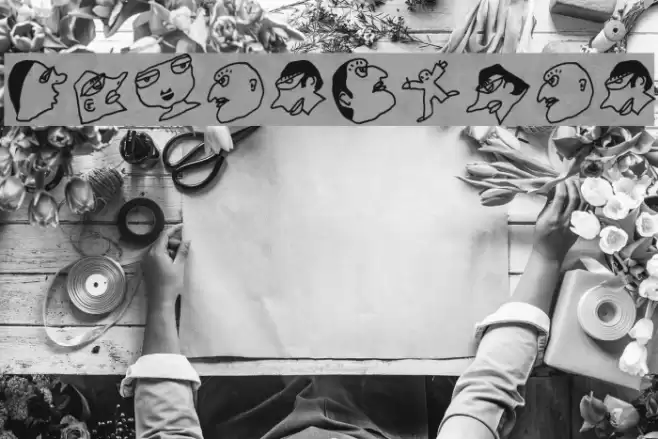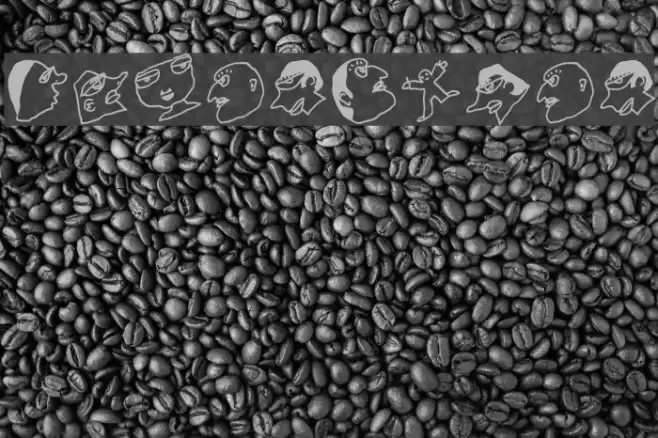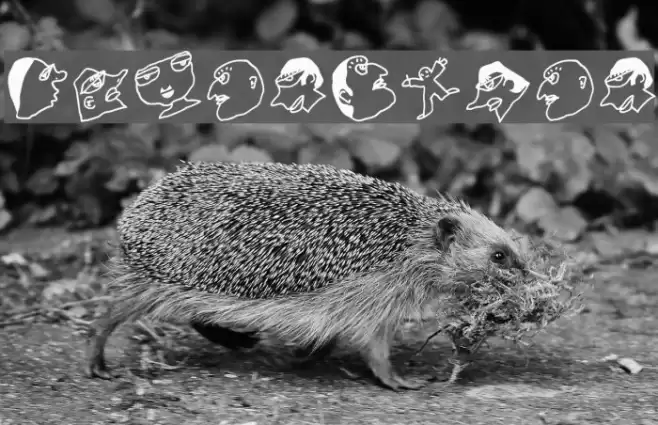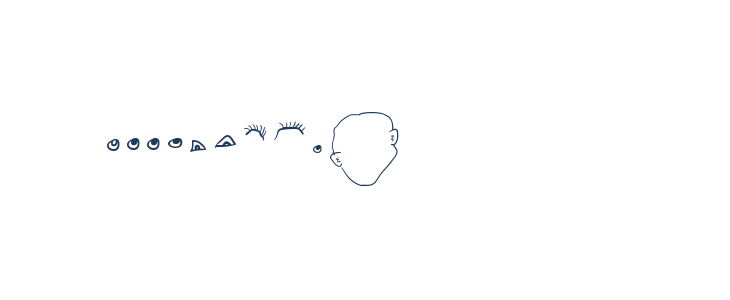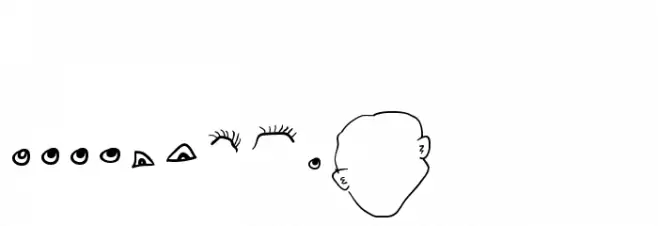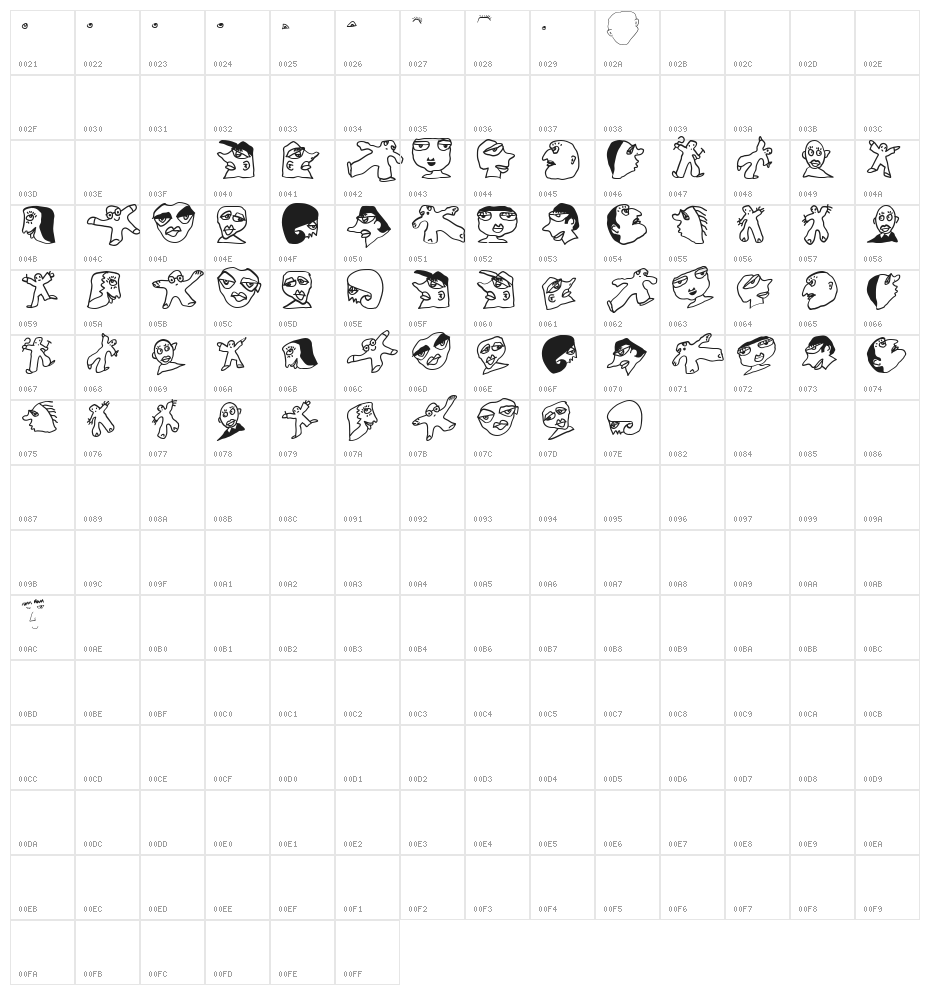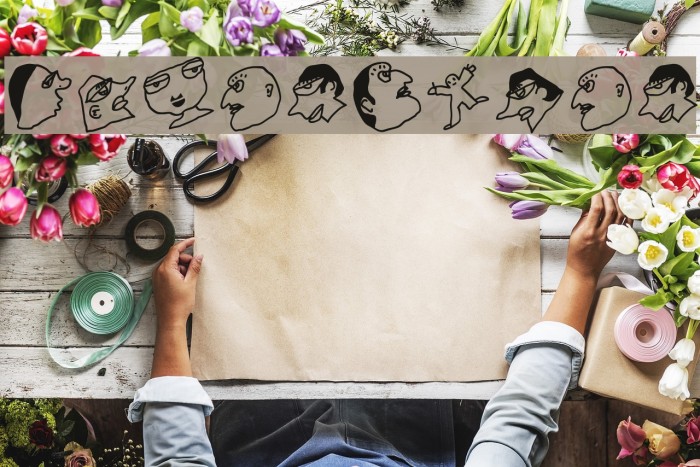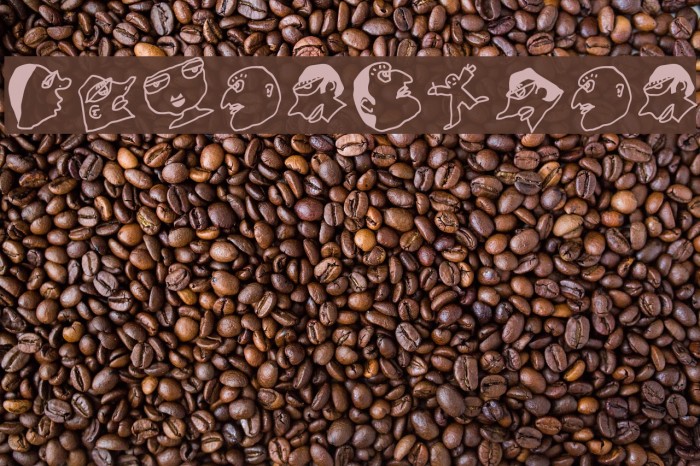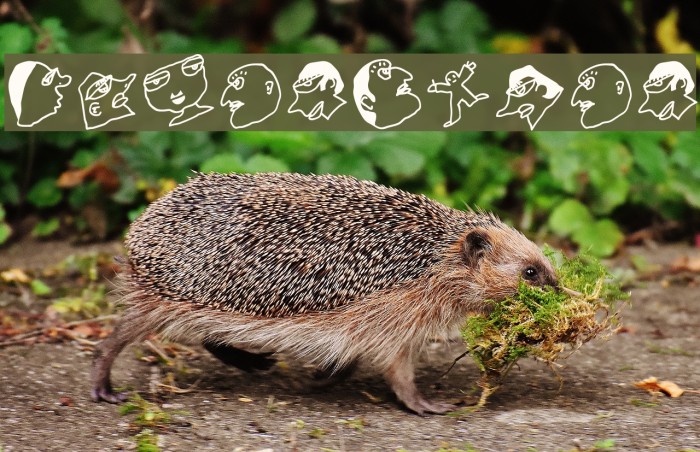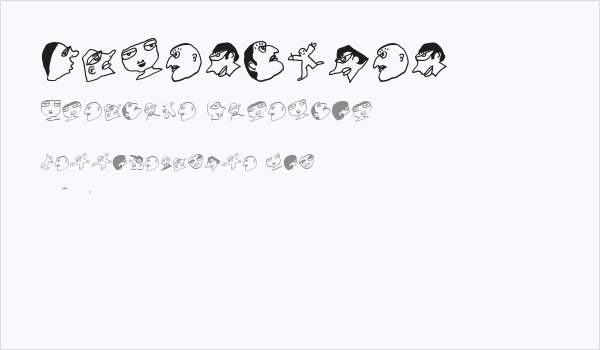
FacesTypes Font
FacesTypes Description
A highly decorative and playful font composed of hand-drawn, abstract faces and figures for each character, giving it a whimsical and artistic appearance. Each glyph is unique, with exaggerated features and expressive lines, making it visually engaging and unconventional.
Hand-drawn, abstract face and figure font with a playful, artistic style from Uncategorized fonts.
- Proposed Projects: Children’s books, art posters, creative branding, album covers, event invitations, editorial illustrations.
- Overall Style: Decorative, Whimsical, Artistic
- Use Case: Logos, Posters, Headlines, Artistic projects